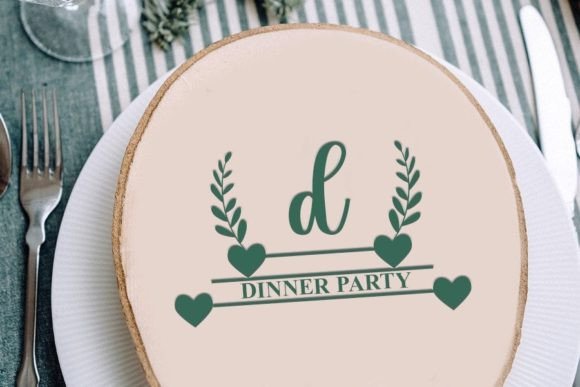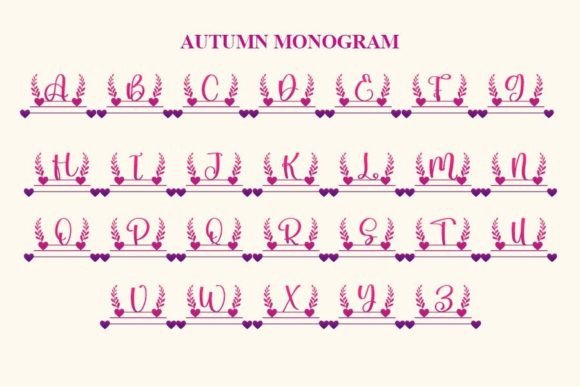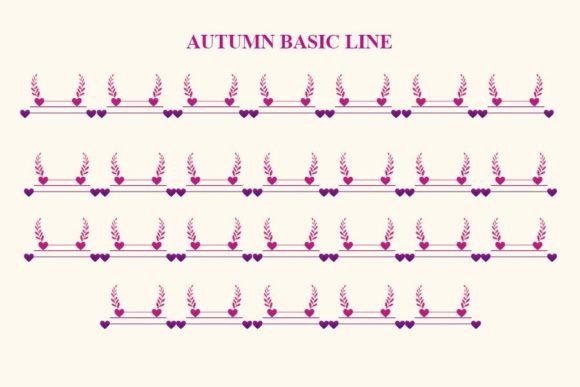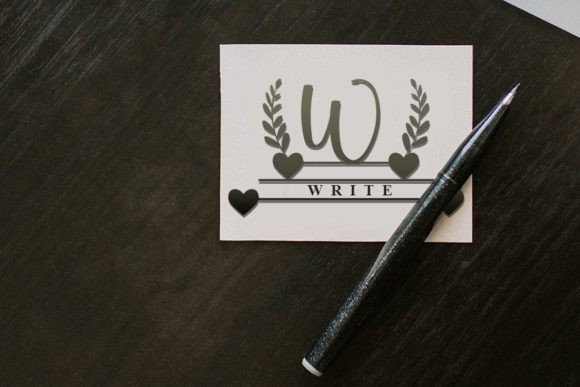
The Perfect Autumn Touch: Exploring the Elegance of Autumn Monogram Font
As designers, we’ve all been there – stuck in the middle of a project, scrambling to find the perfect font that captures the essence of our vision. I recall working on a wedding invitation design, wanting something that exuded class and sophistication, but my font library just wasn’t cooperating. That’s when I stumbled upon the Autumn Monogram Font , and it instantly elevated my design to a whole new level. In this article, we’ll dive into the world of Autumn Monogram, exploring its features, uses, and what makes it a standout in the font world.
- ✅ Classy and Modern: This font strikes the perfect balance between being classy and modern. It’s versatile enough to be used for logos, branding, invitations, stationery, wedding designs, social media posts, and more.
- ⚠️ Glyph Overload: With so many glyphs and ligatures at your disposal, it’s easy to get overwhelmed. Take some time to familiarize yourself with the font’s capabilities to get the most out of it.
- ⚠️ Pairing Challenges: As with any monogram font, finding the perfect pairing can be a bit tricky. Experiment with different font combinations to find the one that works best for your design.
The Story Behind Autumn Monogram
Autumn Monogram was inspired by the warmth and coziness of the fall season. The designer aimed to create a font that captured the essence of autumn – rich, elegant, and full of character. By combining classic monogram elements with modern typography techniques, Autumn Monogram was born.
Q: Can I use Autumn Monogram for my wedding invitations?
A: Absolutely! The font’s elegant and refined nature makes it an excellent choice for wedding designs, including invitations, programs, and more.
Q: Can I use Autumn Monogram on social media?
A: Yes, the font is versatile enough to be used across various platforms, including social media posts, stories, and graphics.